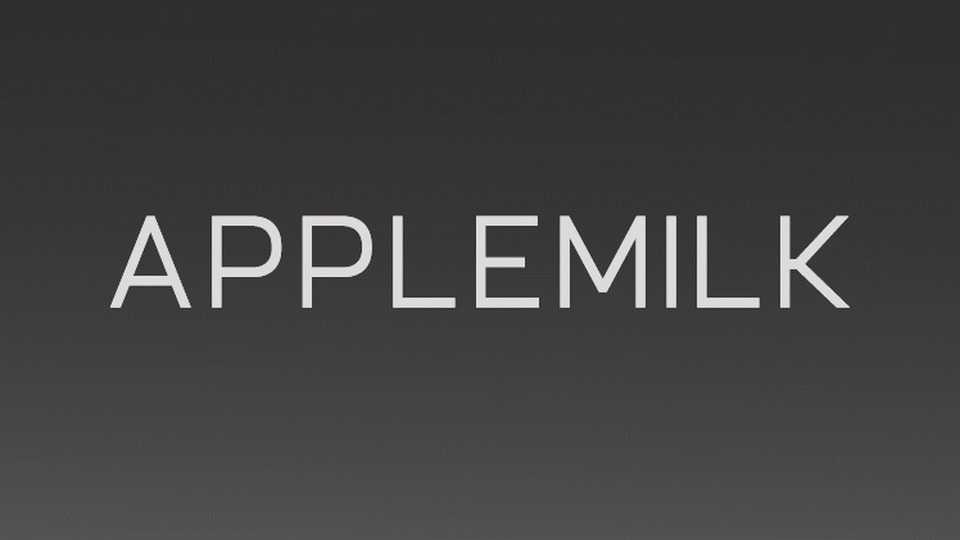
Download Applemilk font, a clean and simple sans serif typeface. With smooth and delicate lines, this font works beautifully for logos, branding, and web headings.